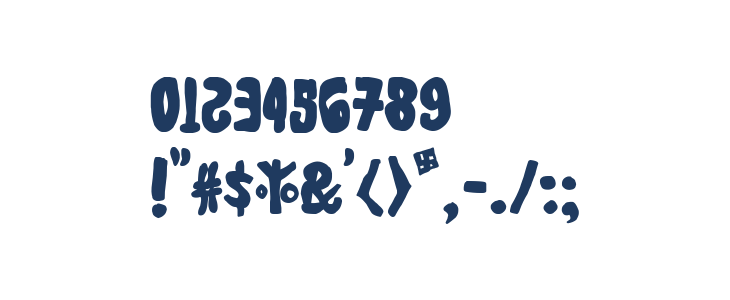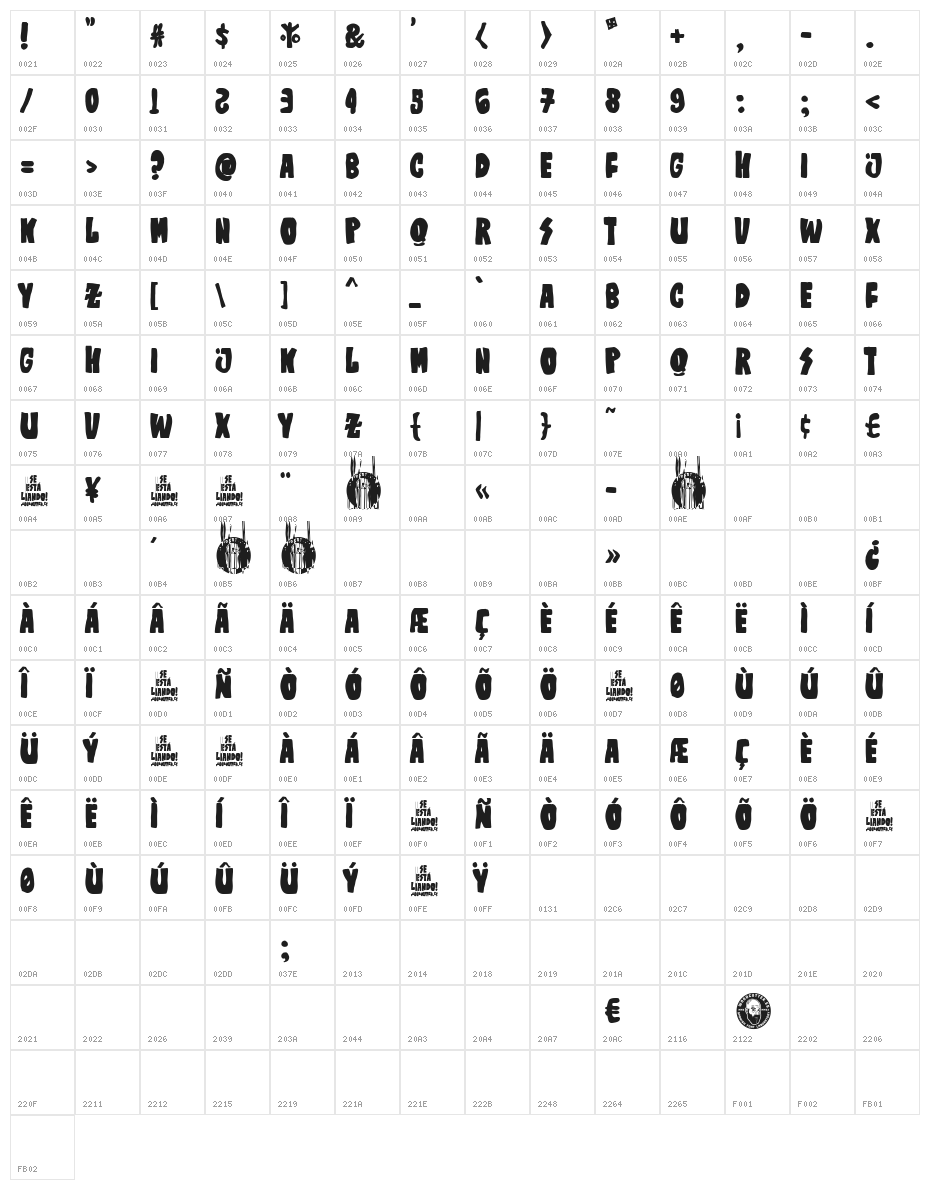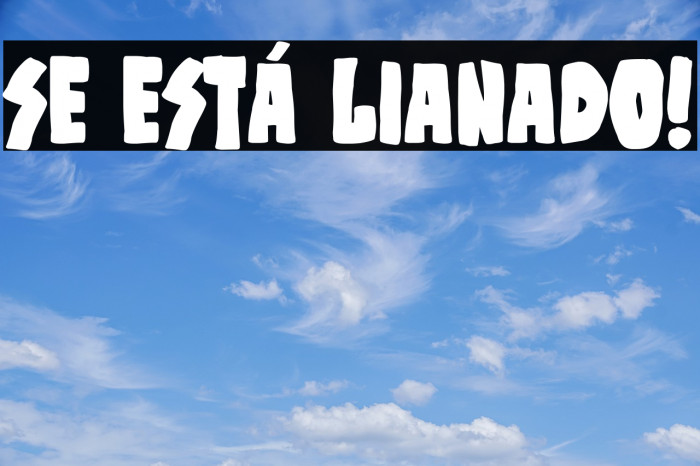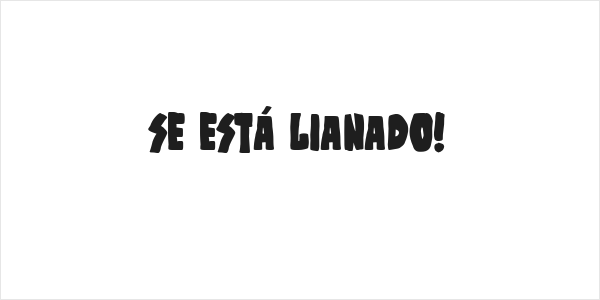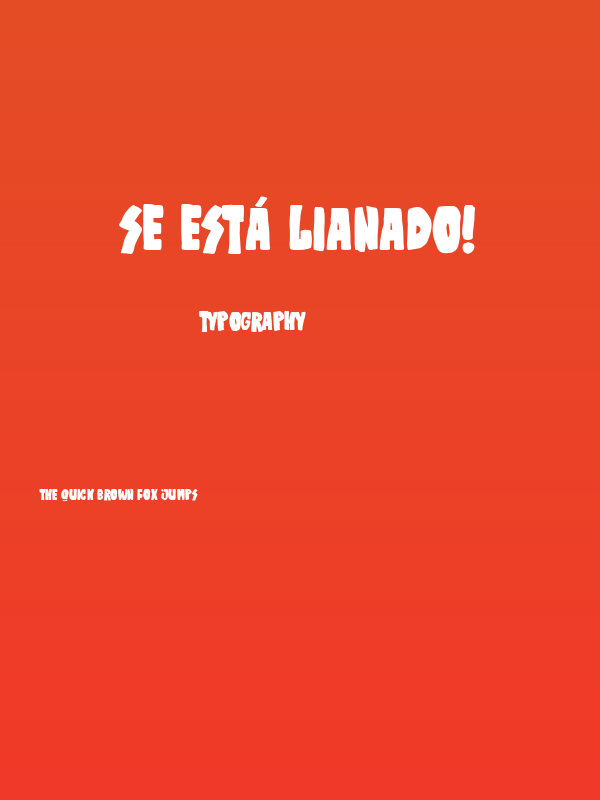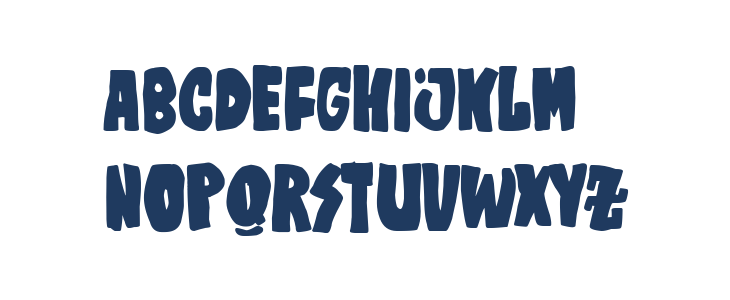
Se está lianado! Font
Se está lianado! Description
This font features a bold and playful design with exaggerated, rounded shapes that give it a cartoonish and whimsical appearance. The letters are thick and have a slightly uneven, hand-drawn quality, adding to its charm and uniqueness. The uppercase and lowercase letters maintain a consistent style, with the uppercase being more prominent. Numbers and special characters are equally bold and expressive, making them stand out. The font's overall look is informal and fun, suitable for creative and lighthearted projects.
| Proposed Projects | Ideal for children's books, comic strips, playful branding, and party invitations. |